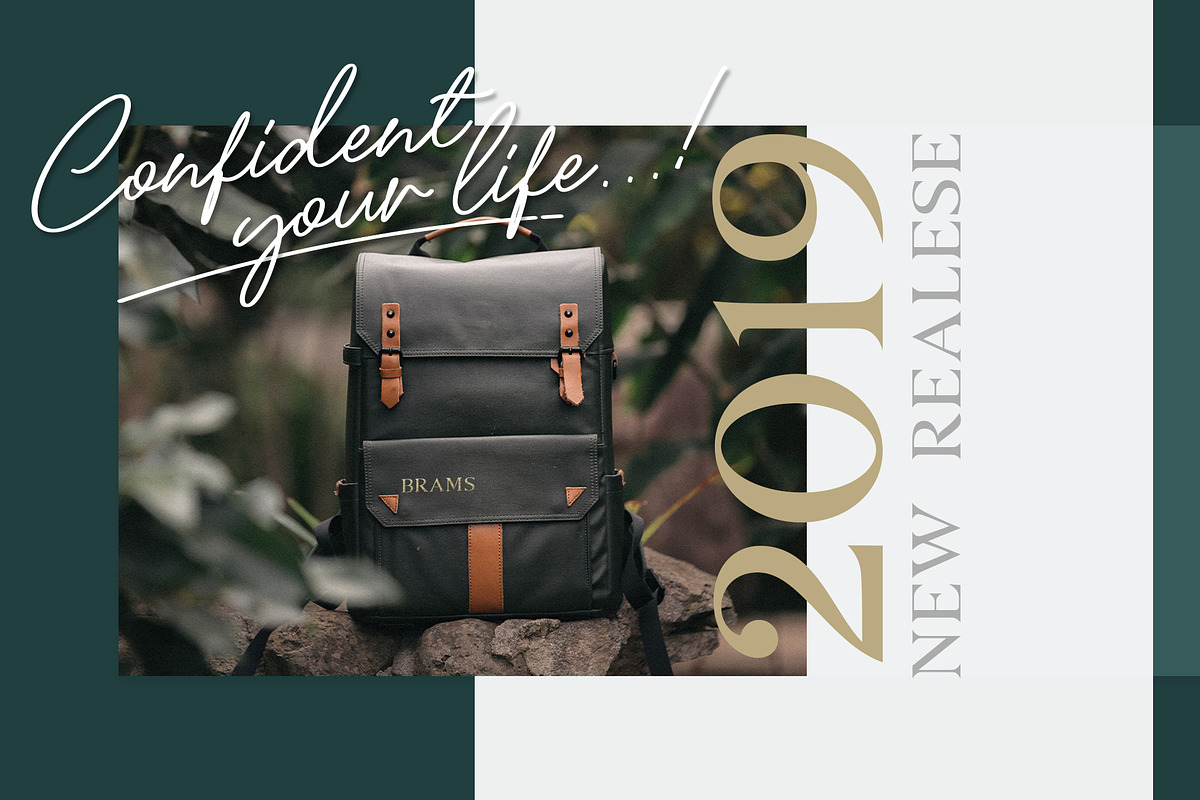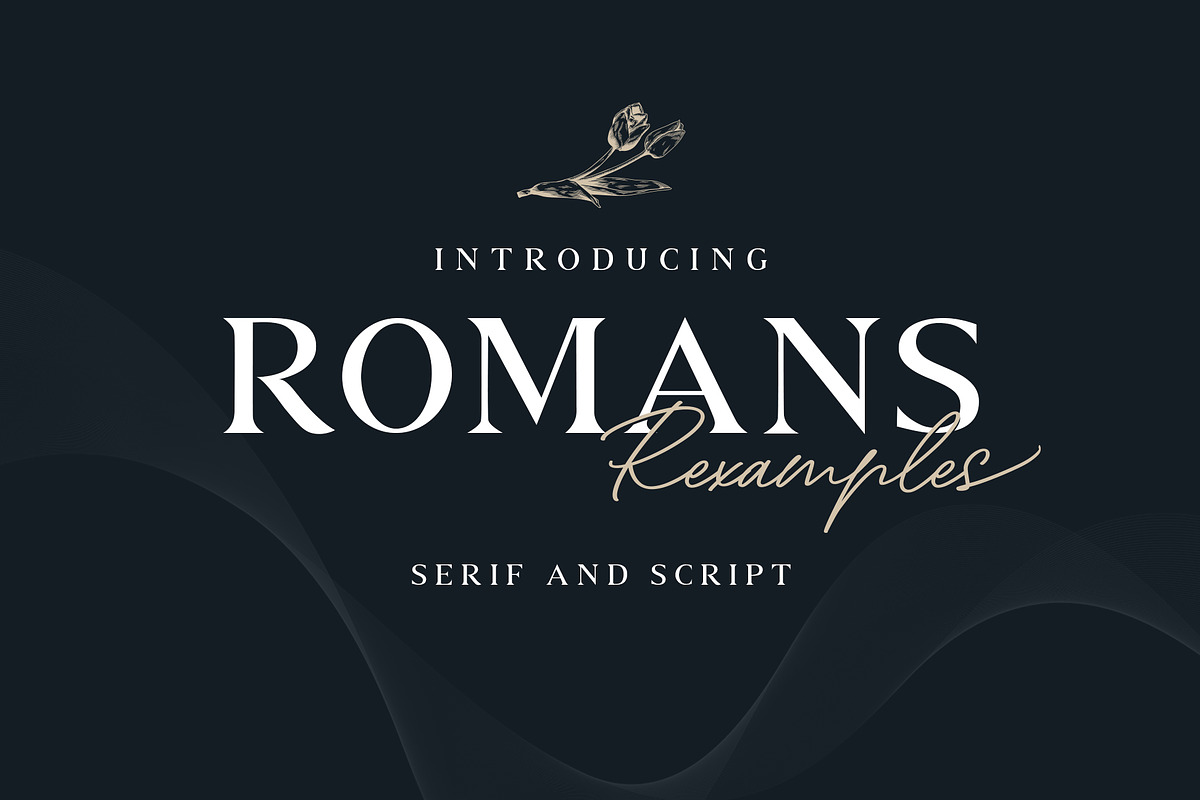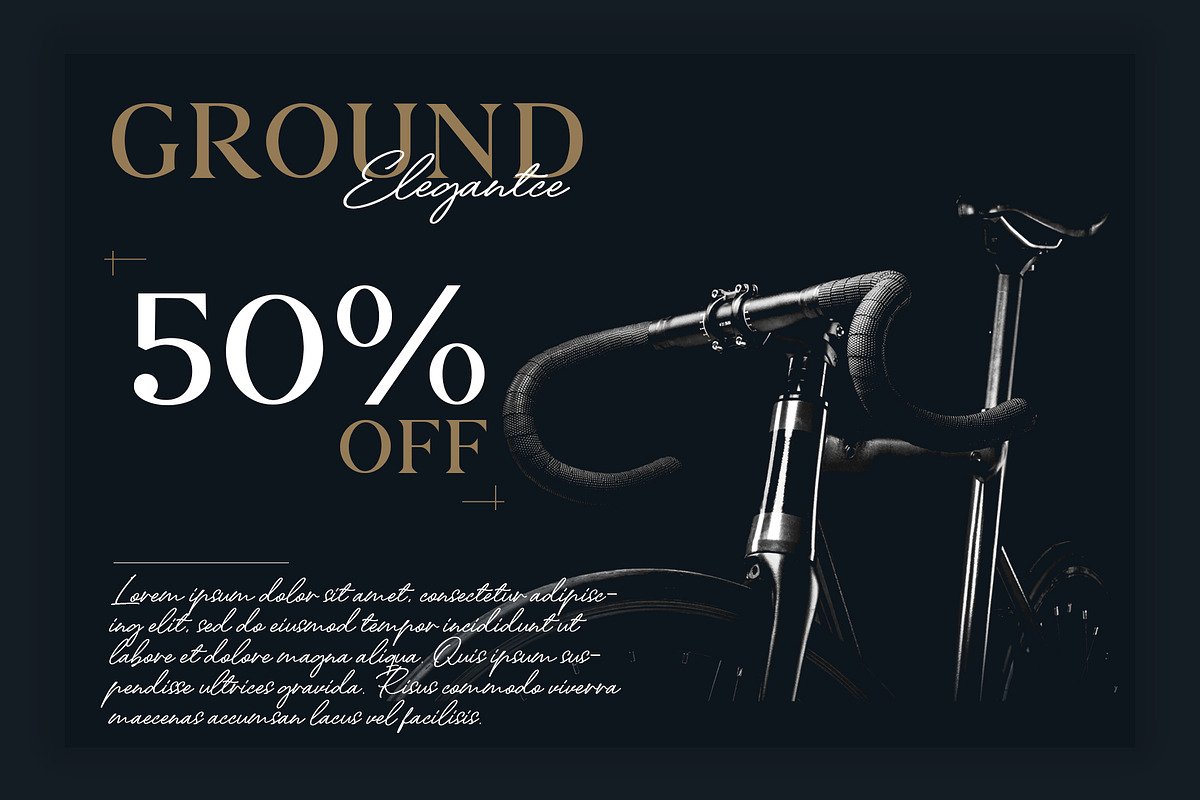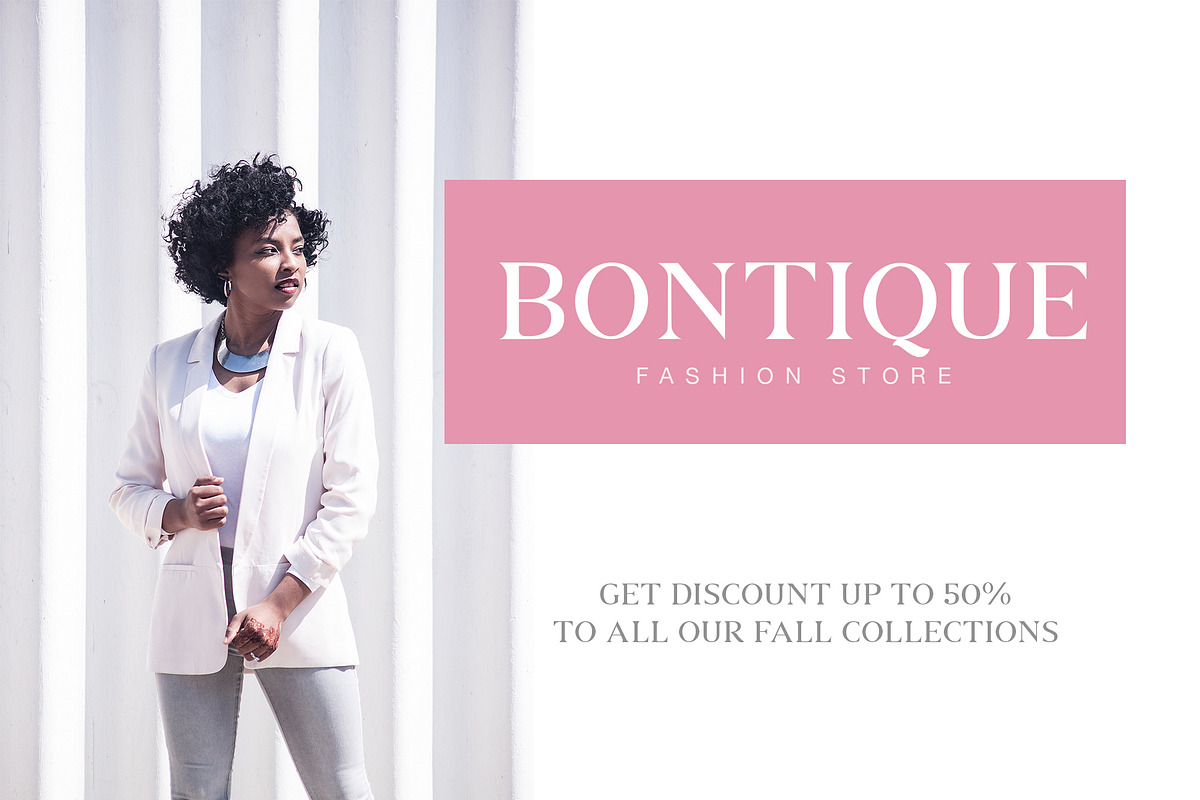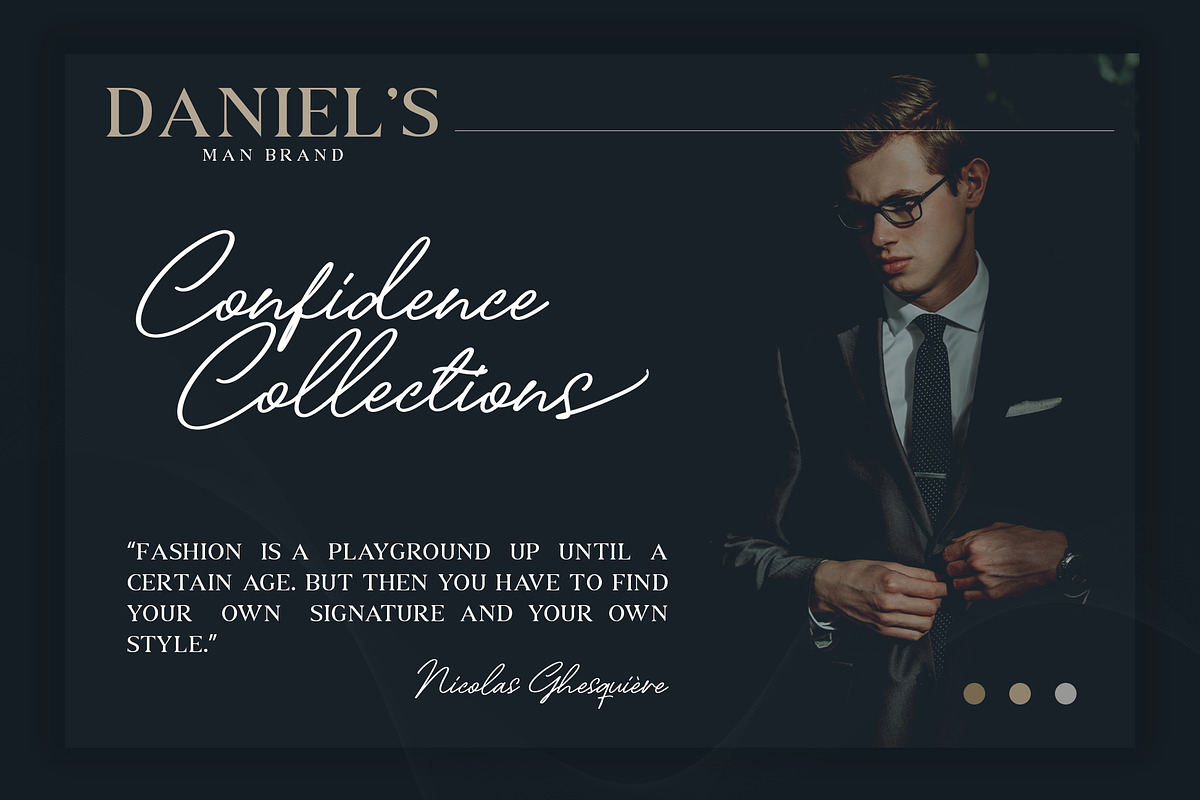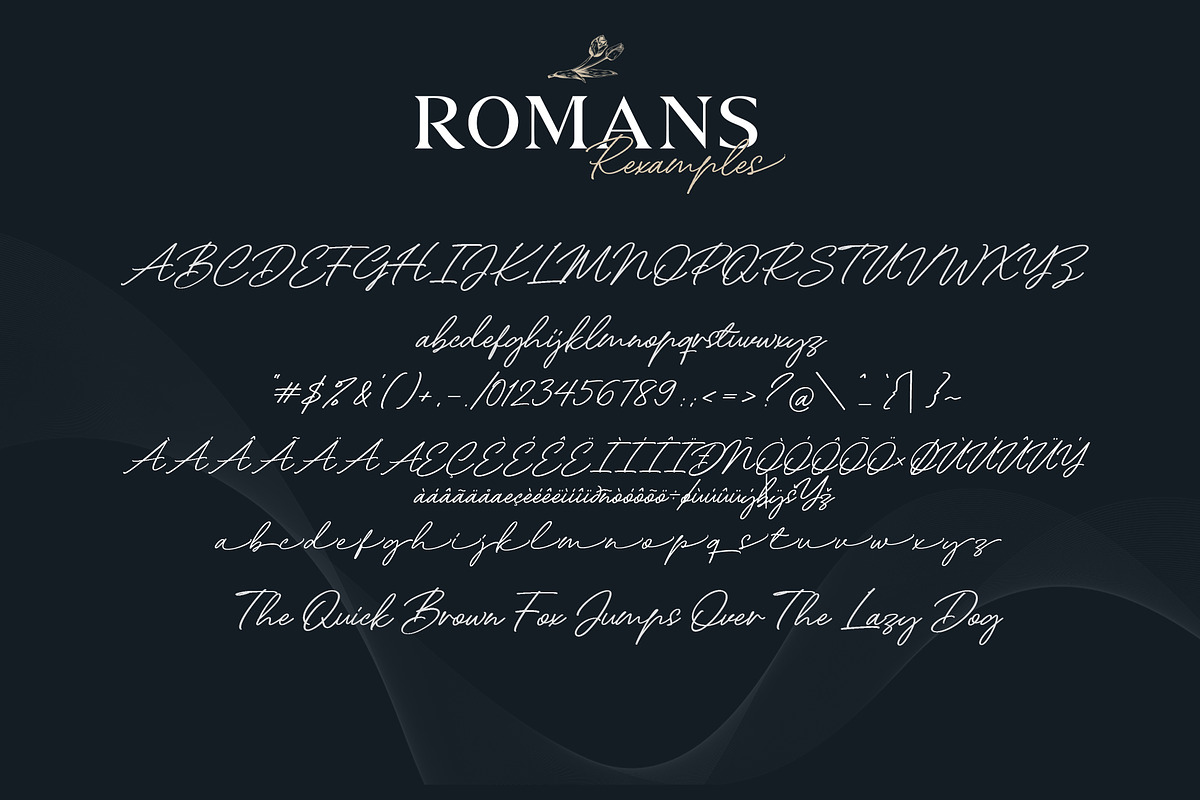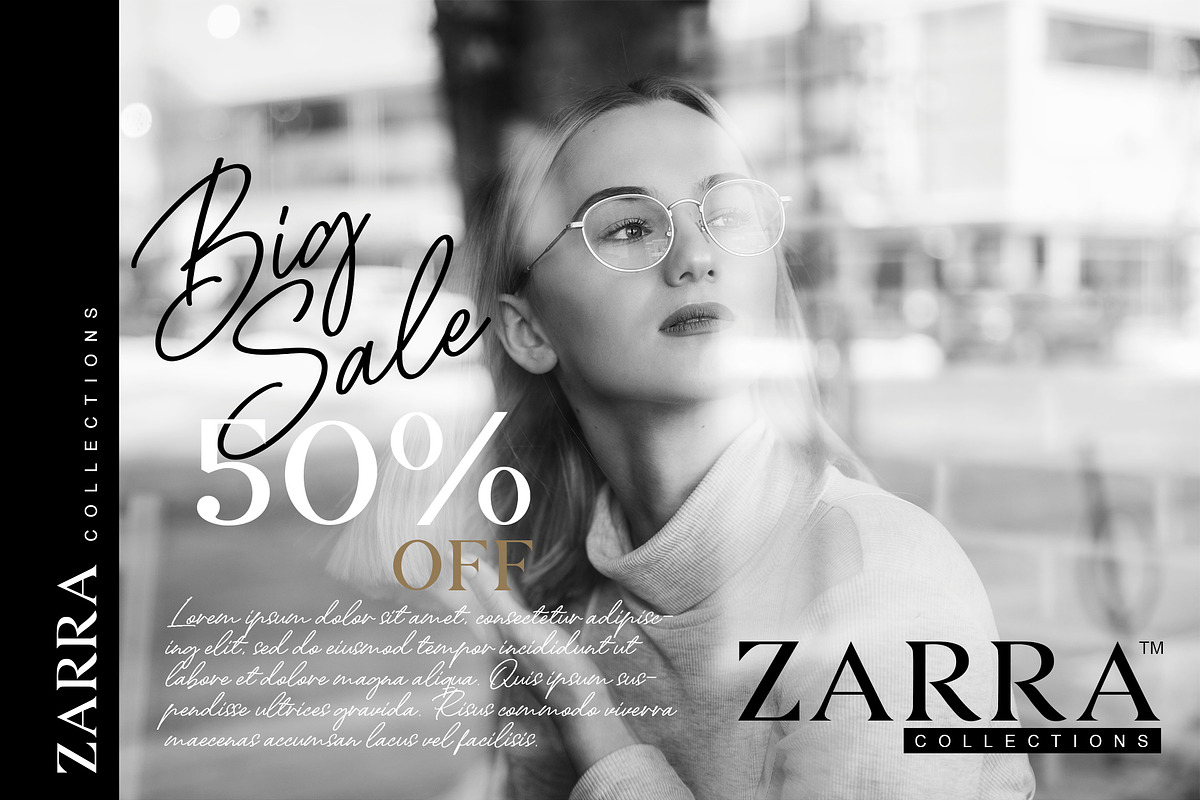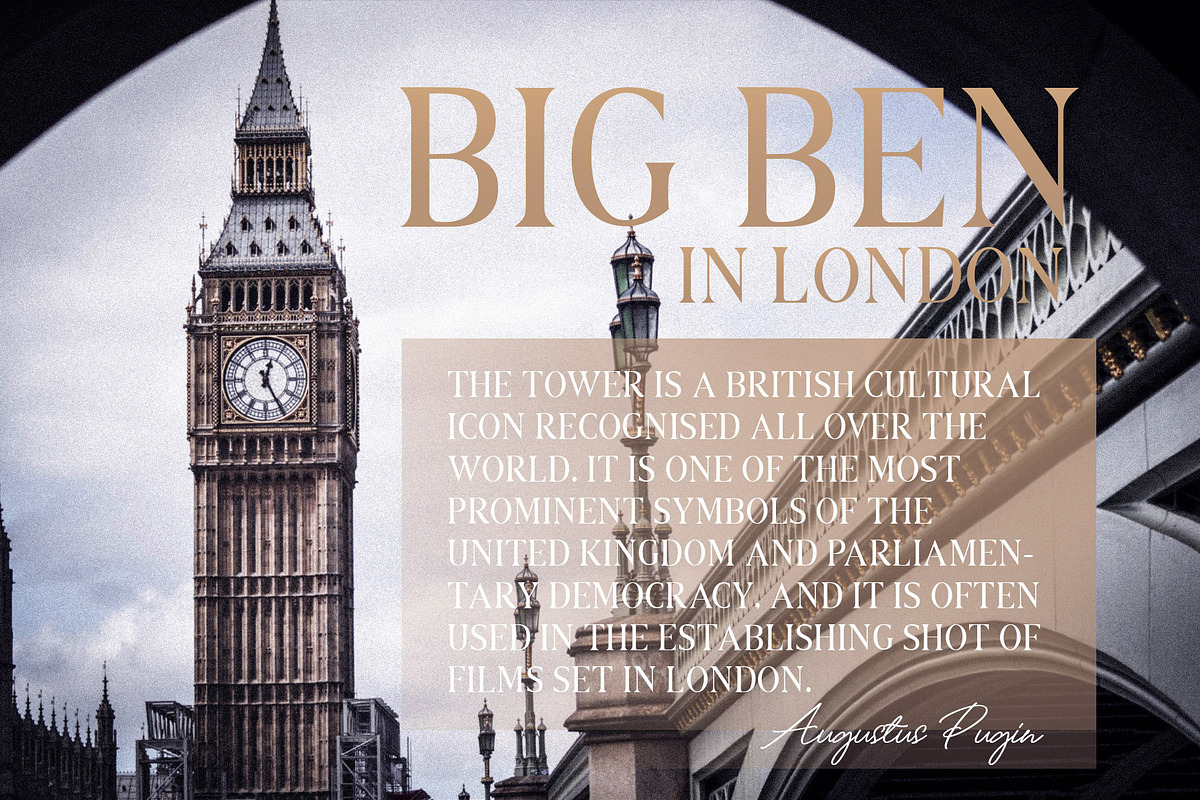
ROMANS Rexamples Font Duo
Introducing ROMANS Rexamples Font Duo offers beautiful typographic harmony for a diversity of design projects, including logos & branding, wedding designs, social media posts, advertisements & product designs.
Why ROMANS Rexamples Font Duo is worth a look
ROMANS Rexamples Font Duo by Cotbadastudio fits naturally into Branding, posters, packaging, typography.